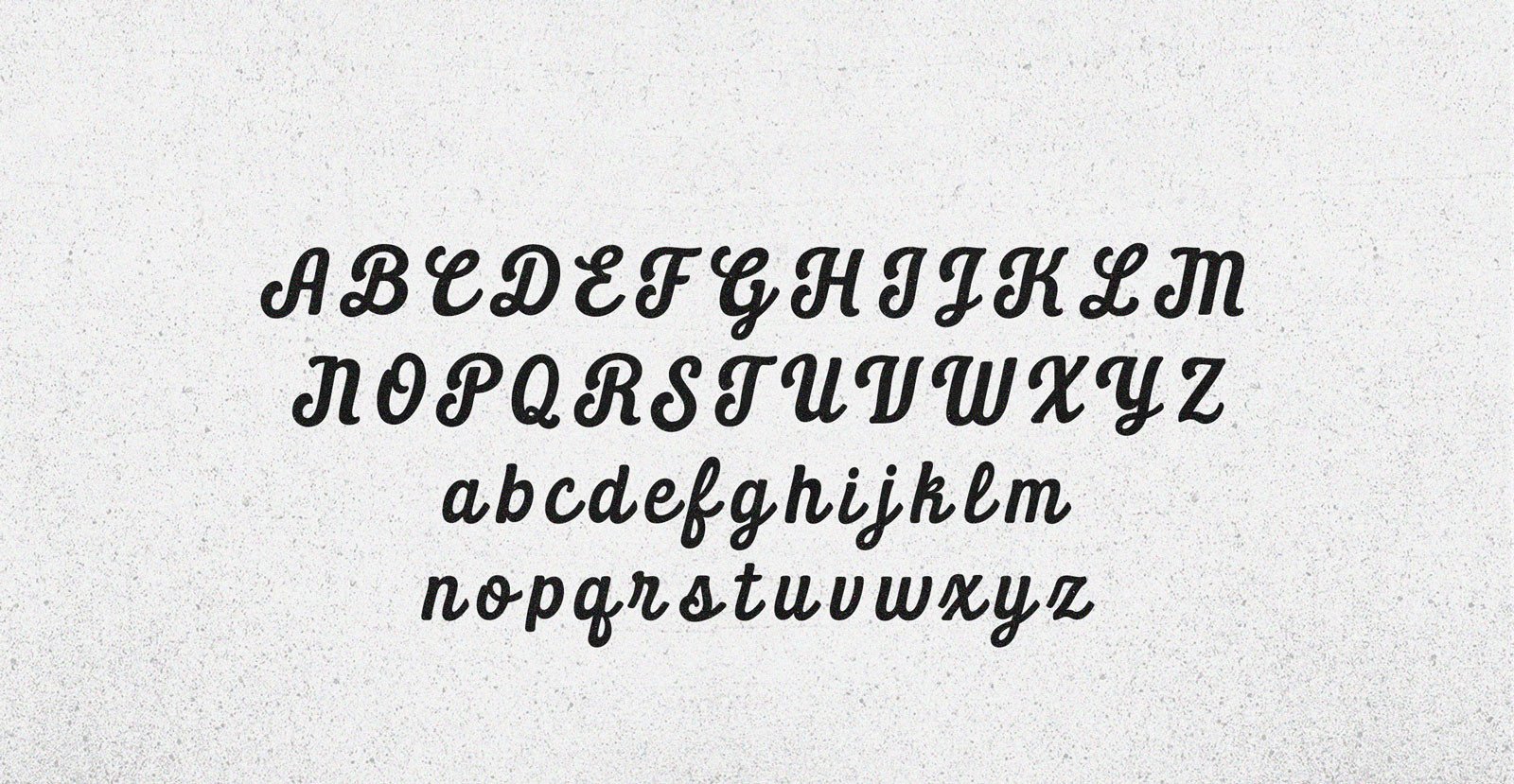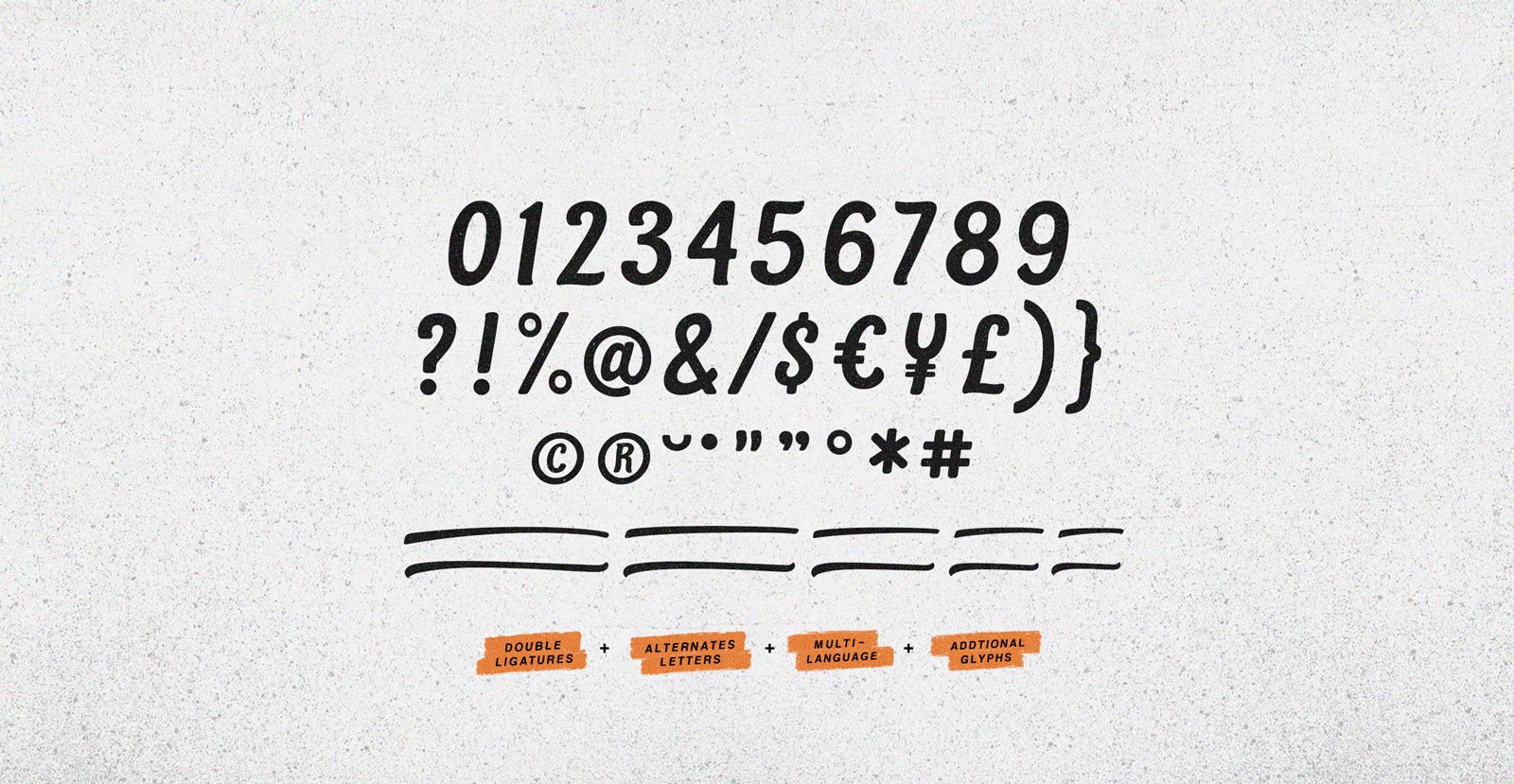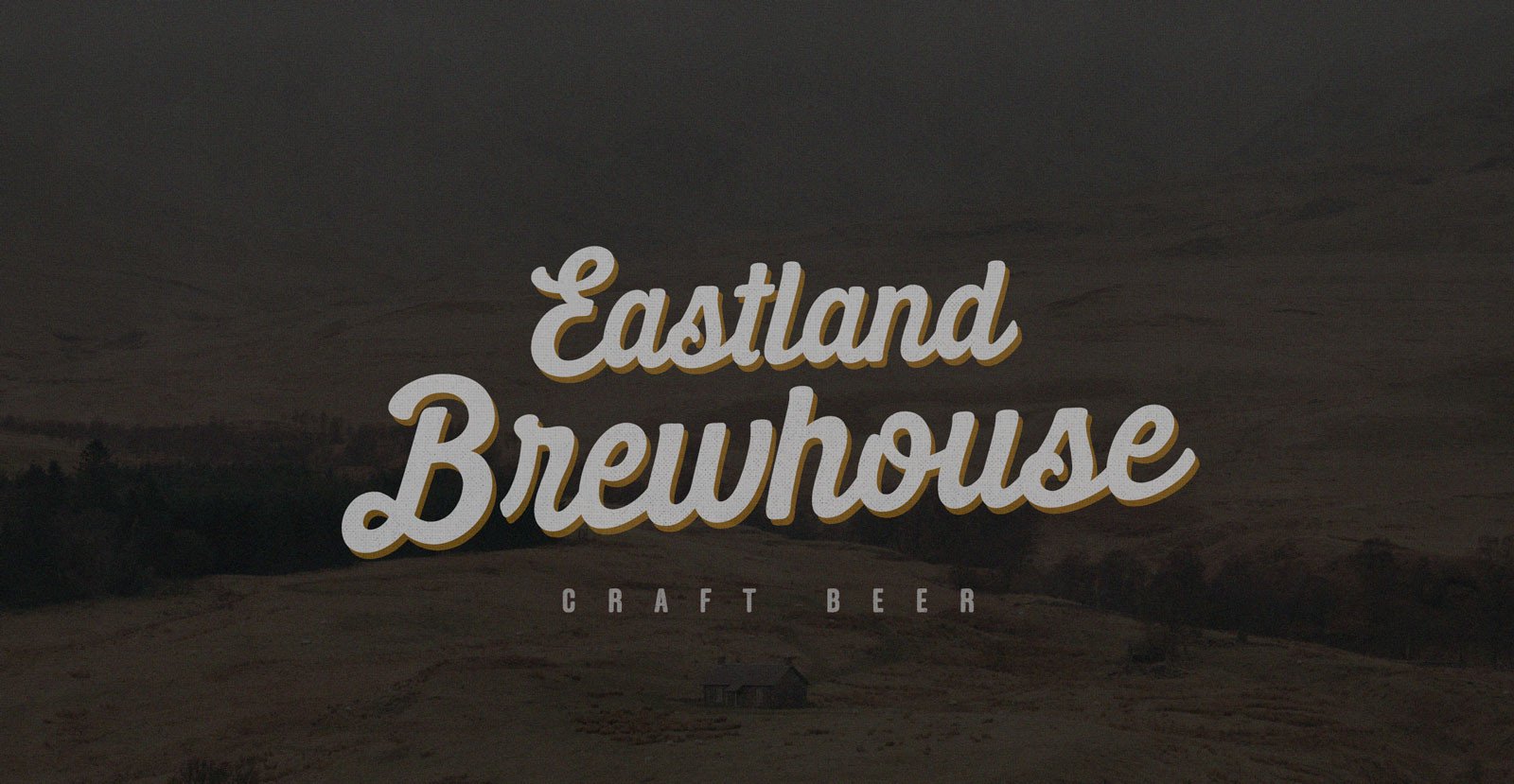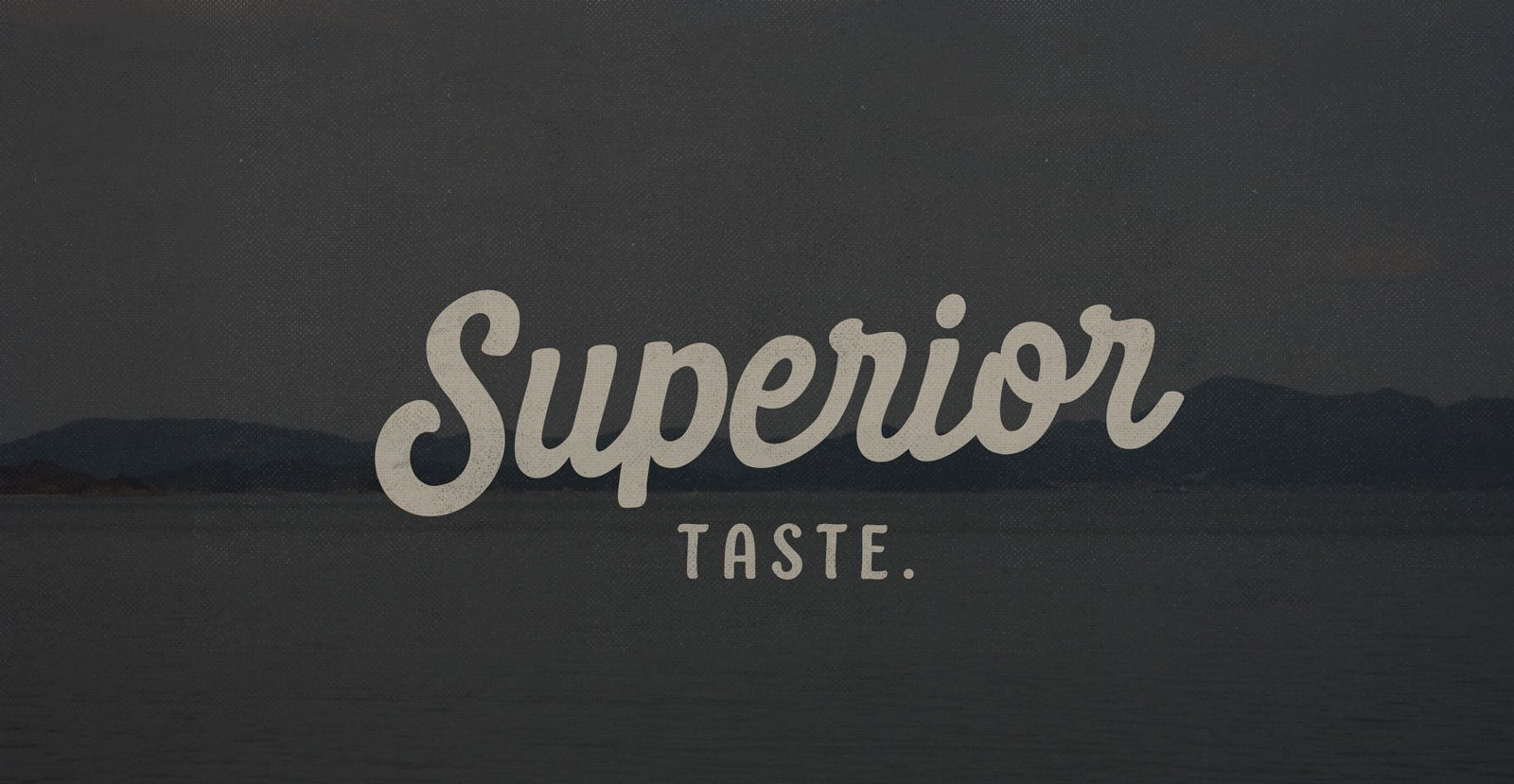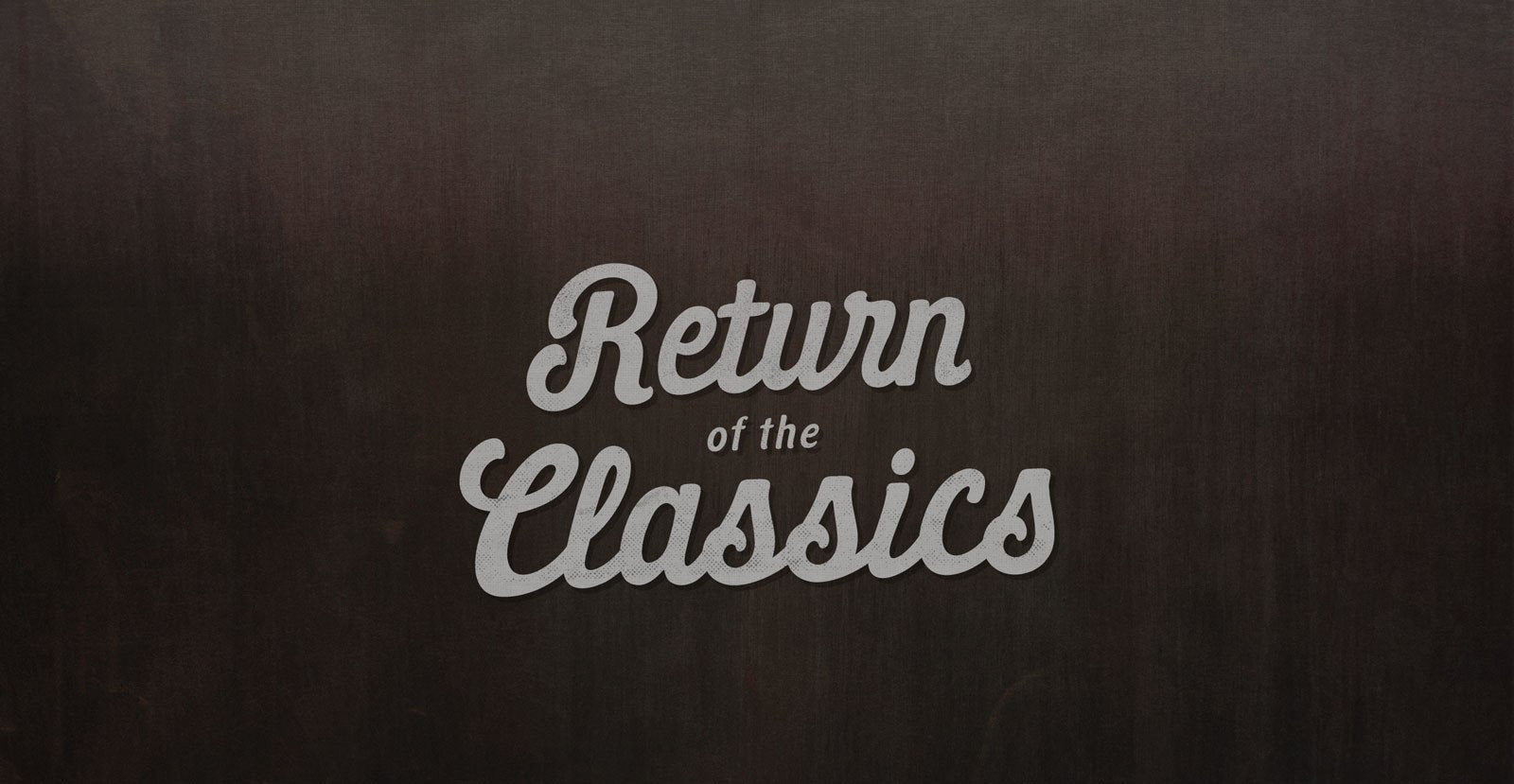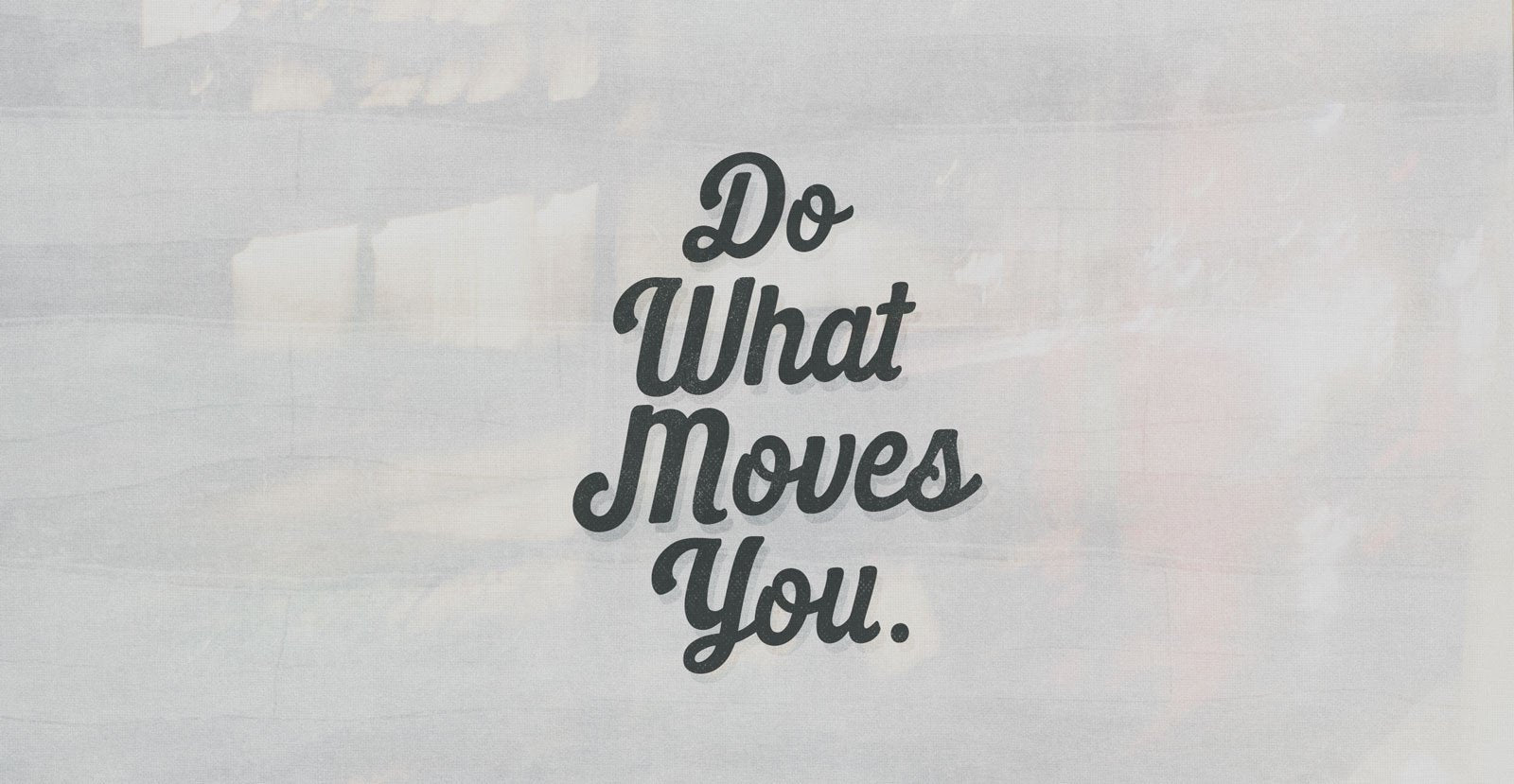
Daily Grind
Handwritten Vintage Script Font
He was half-asleep and slightly outside sanity after days in a quasi-twilight, bouncing between terminals like a red line. Back on Earth, duty called, its unique ringtone braying through delirium, his Daily Grind cooling chaos.